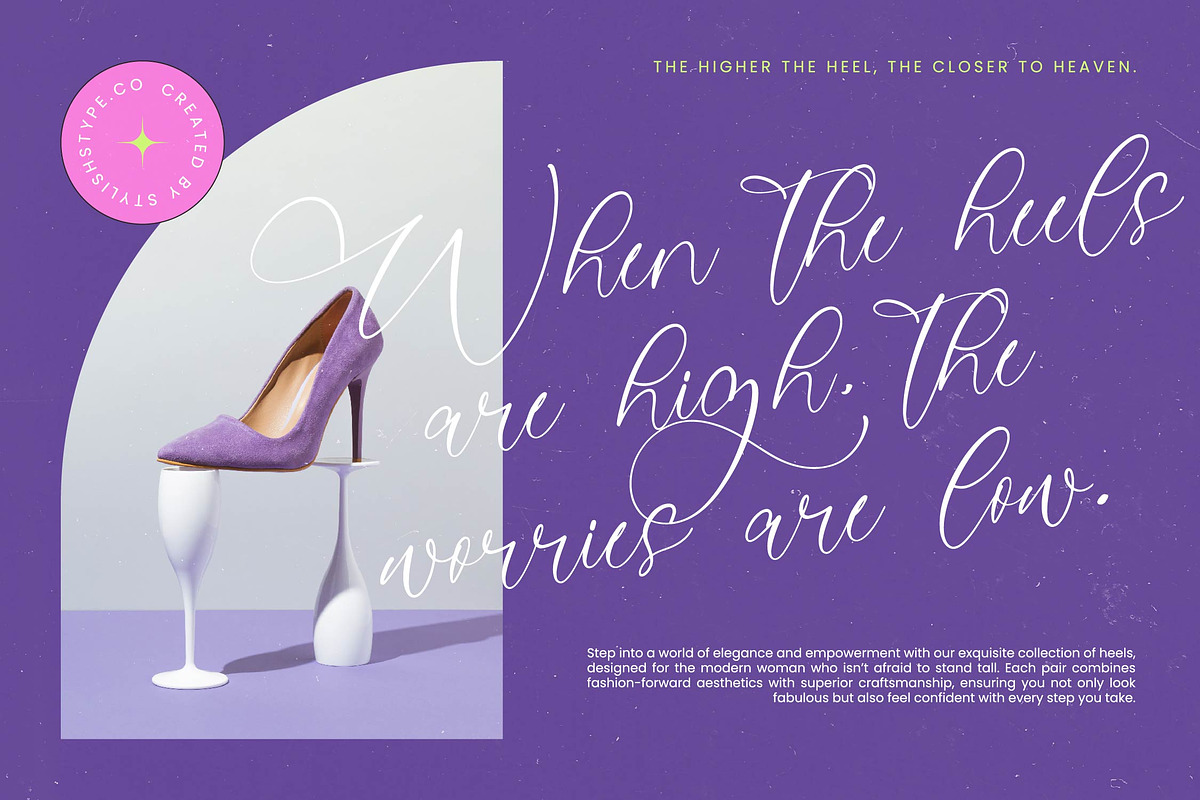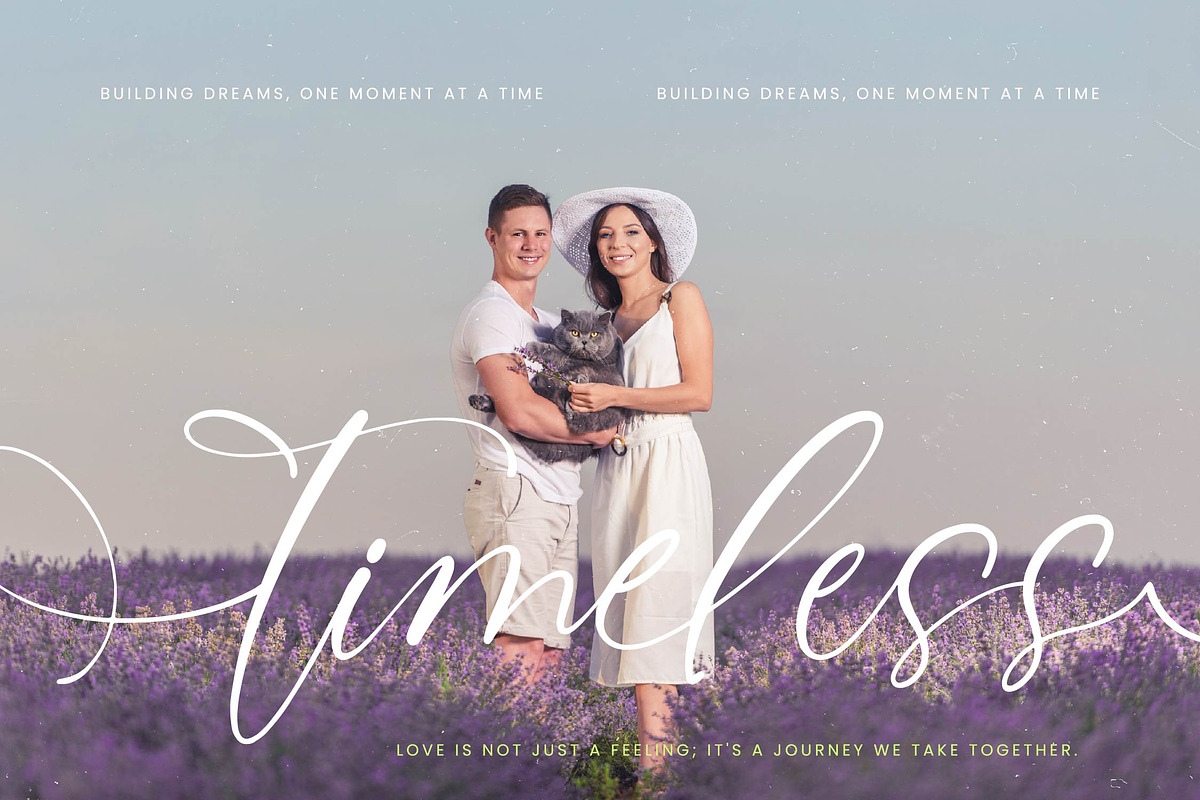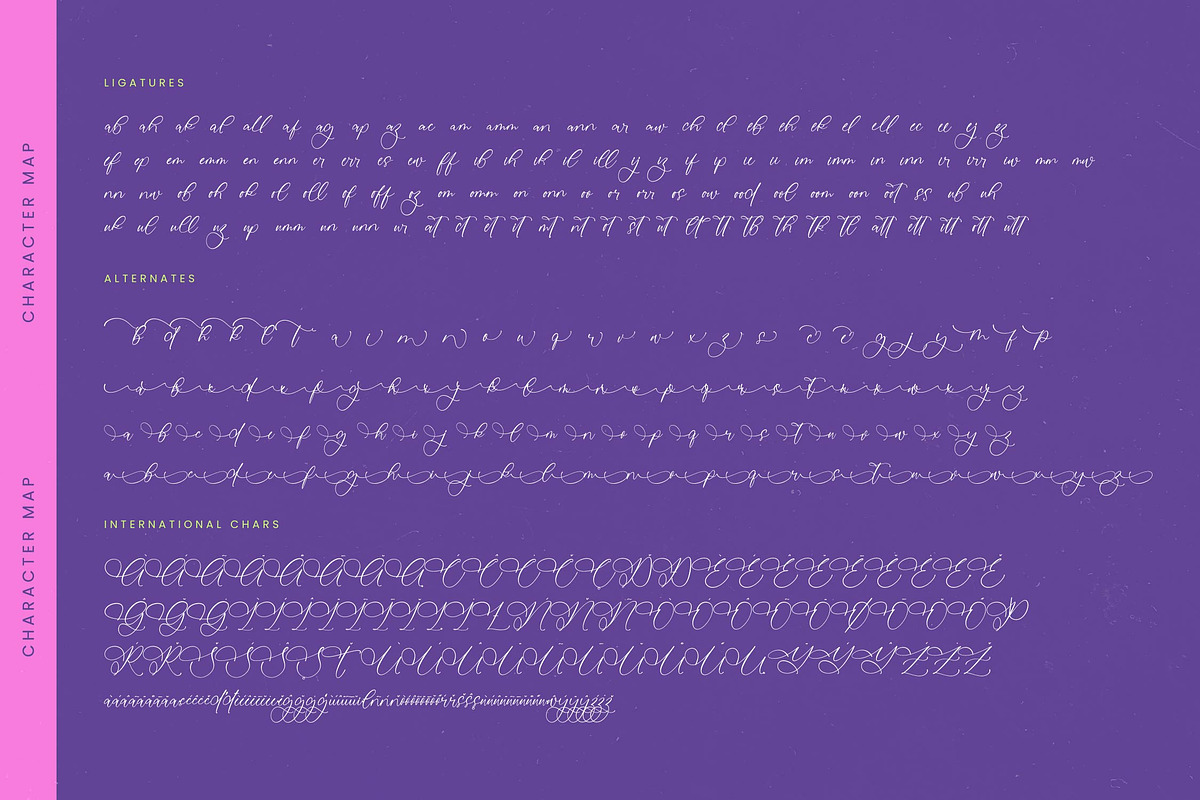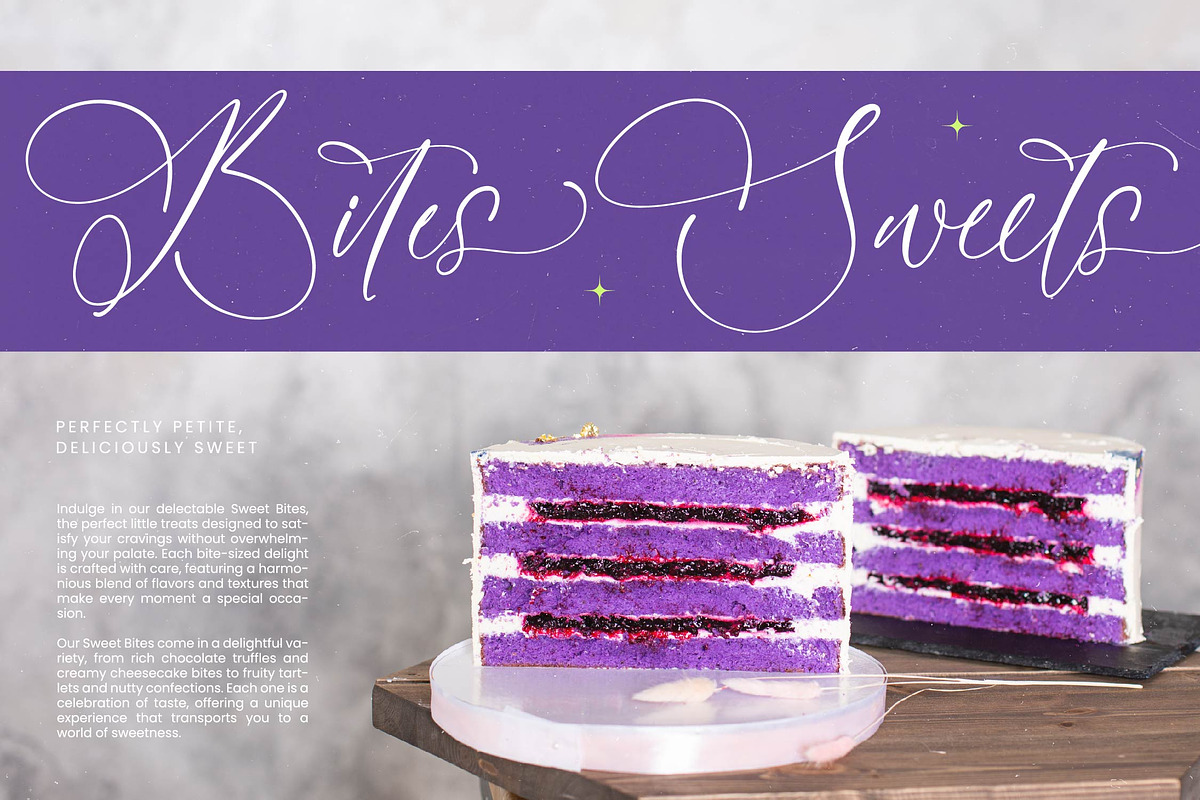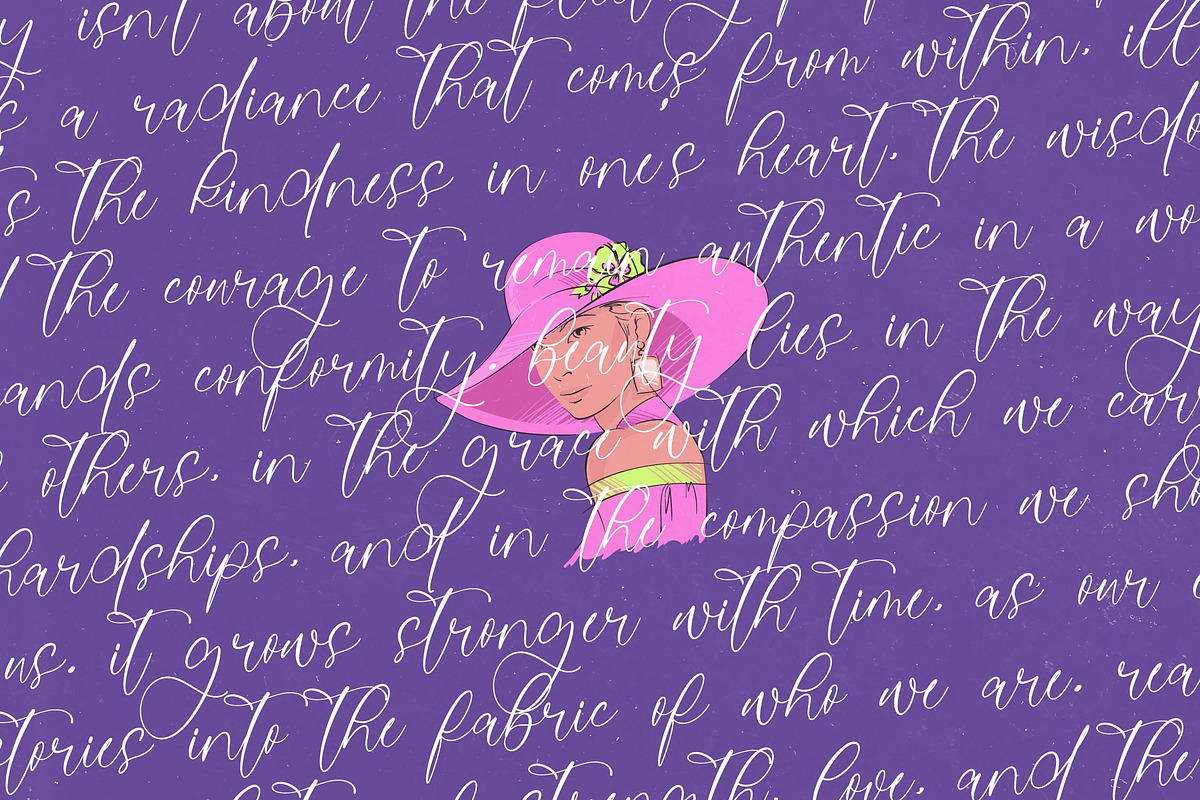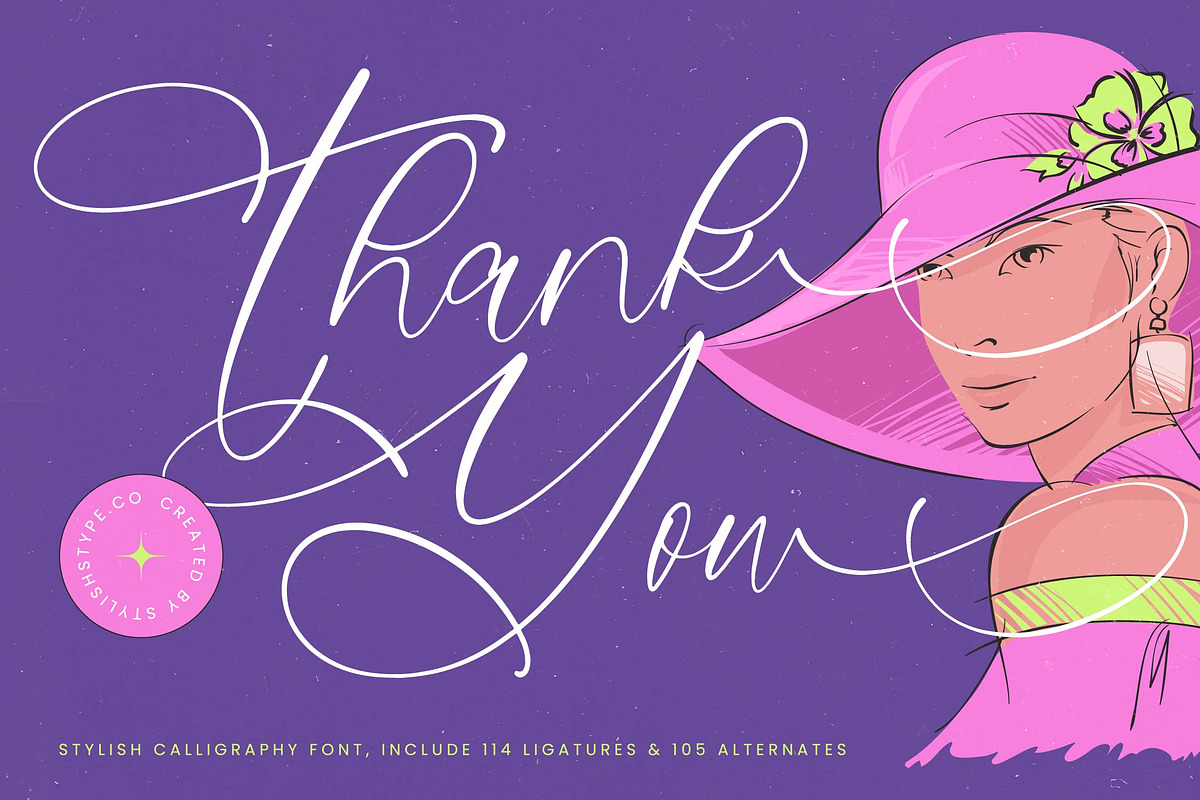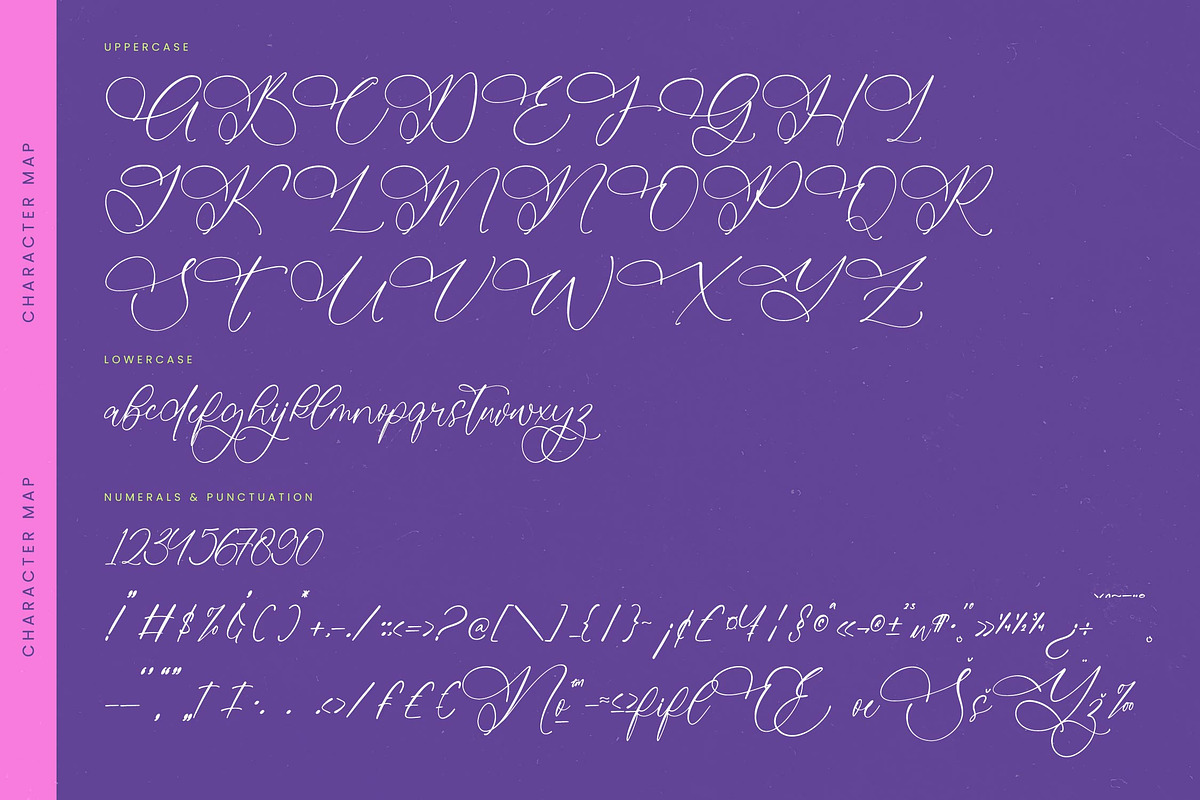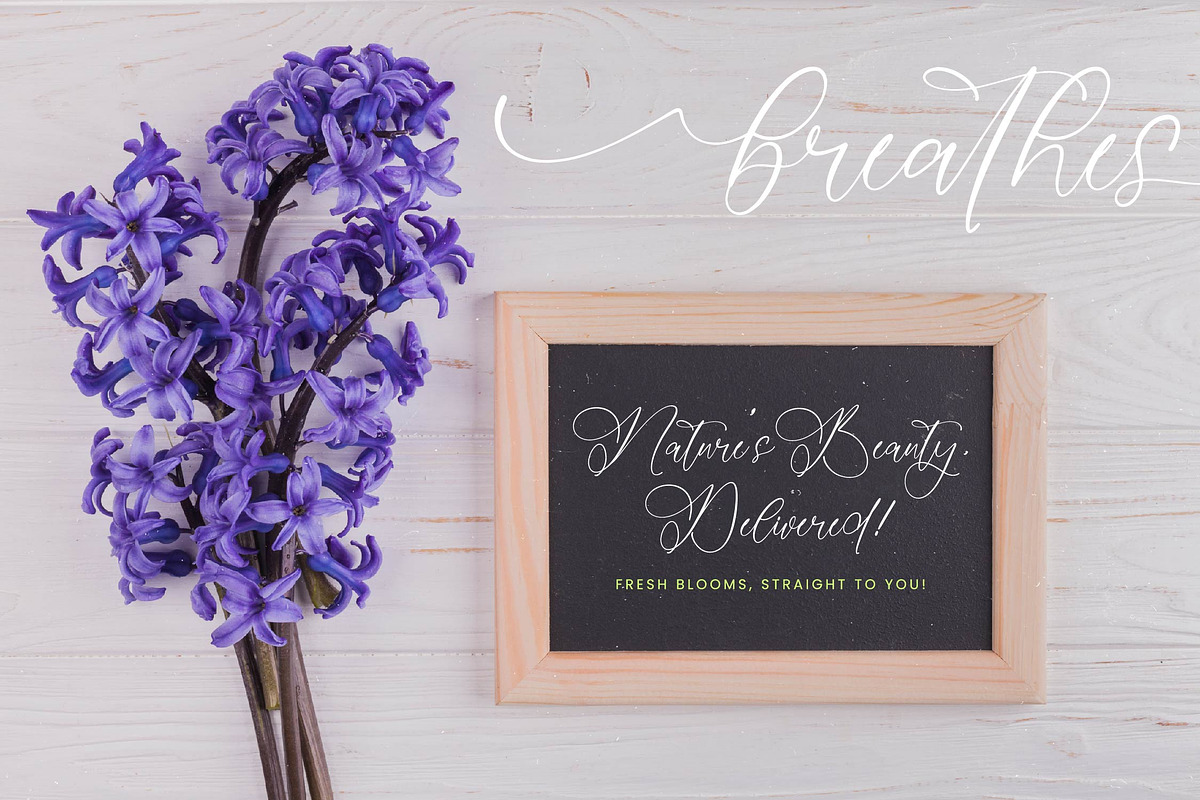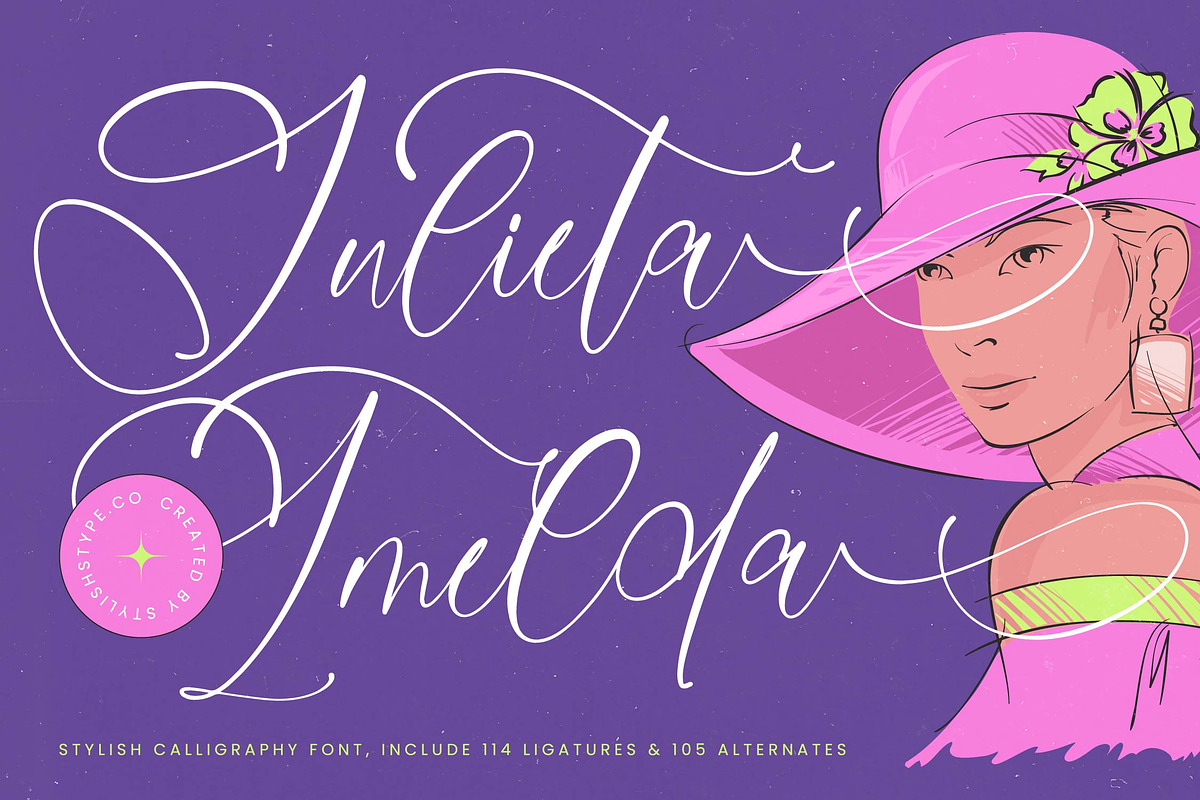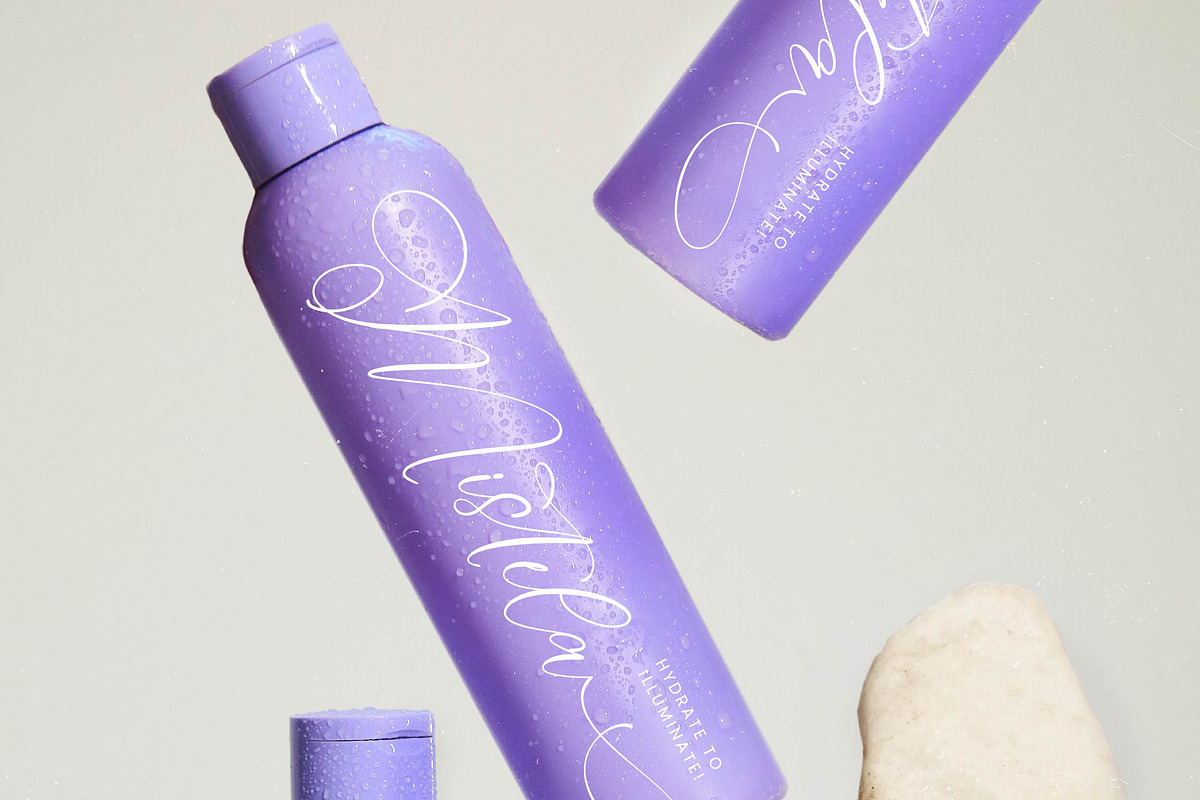
Julieta Imelda Stylish Calligraphy
Julieta Imelda - Stylish Calligraphy Font , from Stylishtype.Co , Suitable for any projects such as: logos, branding projects, homeware designs, product packaging, mugs, quotes, posters, shopping bags, t-shirts, book covers, name card, invitation cards, greeting cards, label, photography, watermark, special events, and all your other luxury and beautiful projects that need a Luxury Script taste.
- 114 Ligature 105 Alternates & Swashes